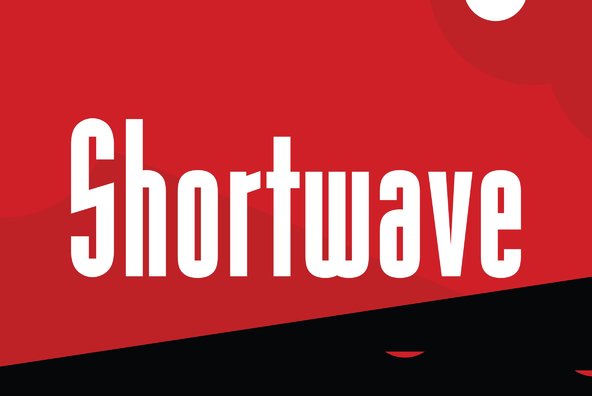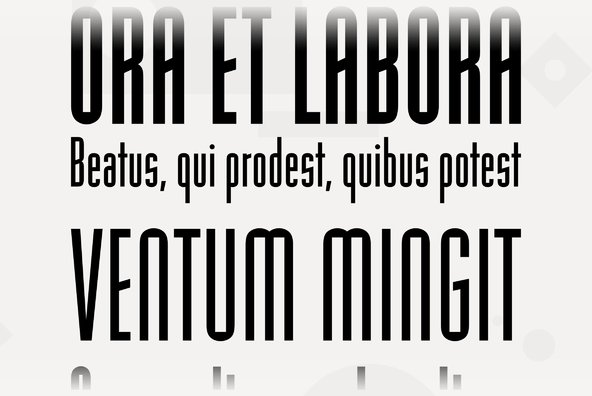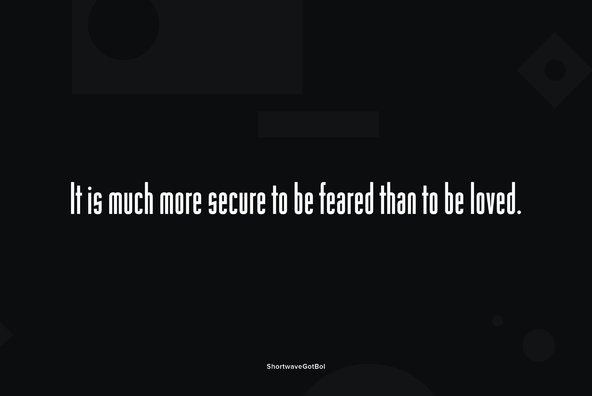
Shortwave Gothic
Designed and engineered by Steve Jackaman. Being a (modest) shortwave radio fan, Steve was inspired to design a typeface that celebrates this incredible technology. The smooth curves and sharp angles incorporated into this unique typeface are meant to symbolize and encapsulate the 'tuning' of the radio signals.